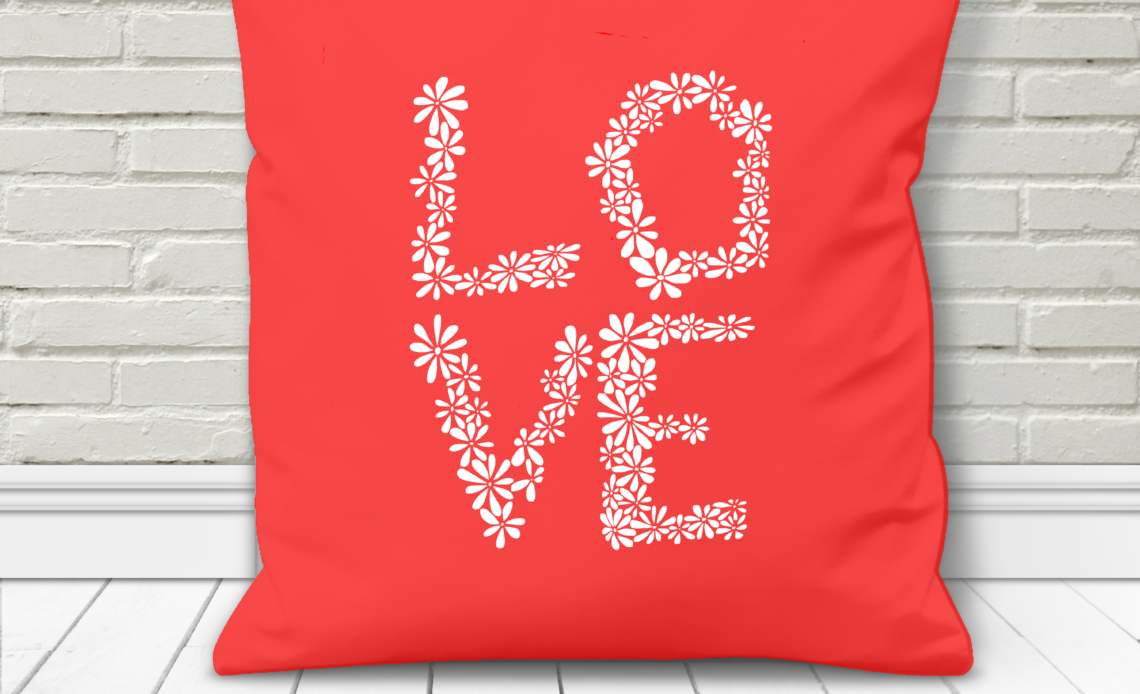
Dive into the enchanting world of the Chamylle font, an exquisite creation by Digital Typeface Studio. This charming decorative font will captivate your senses and transform your design projects into captivating works of art. As you embrace the elegance of Chamylle, prepare to unleash your creativity and embark on a visual journey like no other.
With its meticulously crafted curves and intricate details, Chamylle exudes a timeless allure that will elevate your designs to new heights. Its playful spirit and distinctive character add a touch of whimsy and sophistication to any project, whether it's a personal journal, an eye-catching poster, or an unforgettable branding campaign.
Imagine the joy of using Chamylle to create personalized invitations that reflect your unique style, greeting cards that evoke heartfelt emotions, or social media posts that demand attention. The possibilities are endless, and the beauty of Chamylle lies in its versatility, allowing you to express your creativity in countless ways.
Step into the world of Chamylle and discover a font that sparks imagination and ignites passion. With its enchanting charm and captivating presence, Chamylle is more than just a font, it's a gateway to a world of boundless creativity and endless possibilities. Embrace the magic of Chamylle and watch your designs flourish into captivating masterpieces.